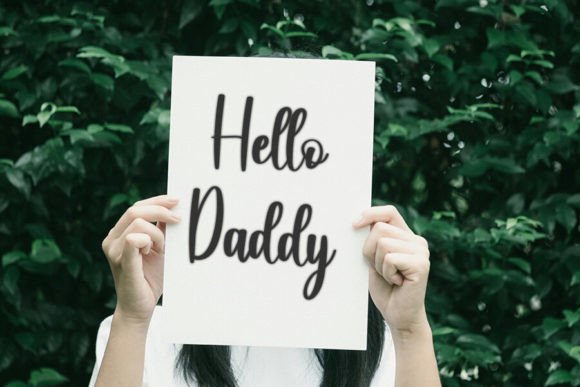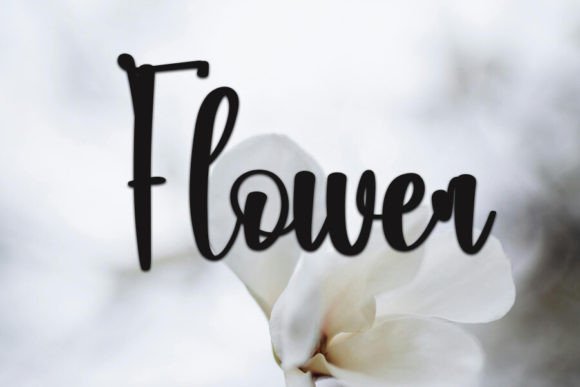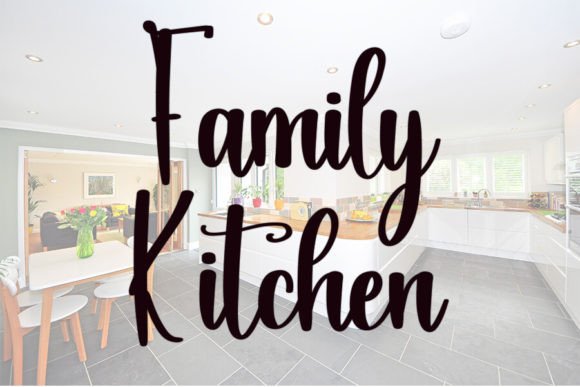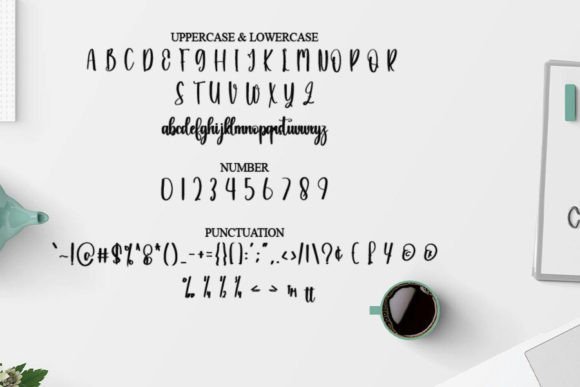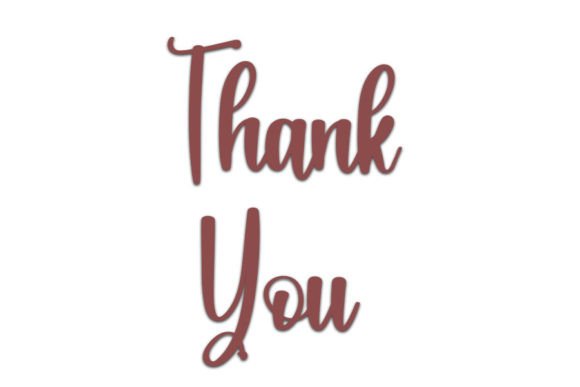
Introduction to Raindrop Font
Do you ever find yourself stuck in a creative rut, browsing through design resources for the perfect font to bring your vision to life? For many of us, this moment of inspiration is what sparks our creativity and drives us to create something truly special. I recall a recent project where I stumbled upon the perfect font – the Raindrop Font – and instantly knew it would elevate my design to the next level.
With its elegant and playful touch, the Raindrop Font is a versatile design resource that can add a personal touch to any creative project. Whether you’re working on a DIY project, creating social media graphics, or crafting calligraphy scripts, this font is sure to make your work stand out. And the best part? The Raindrop Font can be easily downloaded and used with a transparent background, making it perfect for high-quality designs.
For designers, the Raindrop Font is a valuable addition to any design library, offering a unique and stylish way to express your creativity. In this article, we’ll dive deeper into the world of the Raindrop Font and explore its many uses and benefits.
Key Features of Raindrop Font
- High-quality, vector-based design suitable for various creative projects.
- Includes multiple font styles and weights for versatility in design projects.
Honest Review: Raindrop Font
As a designer, I’m always on the lookout for high-quality design resources to elevate my creative projects. Recently, I came across the Raindrop Font, and I’m excited to share my honest review with you.
What works well: ✨ The Raindrop Font is a beautiful, elegant script font that’s perfect for adding a touch of sophistication to any design. Its transparent background makes it easy to work with, and the free download option is a huge plus. The font is also highly customizable, allowing you to adjust the size, color, and spacing to suit your needs.
- ✨ Beautiful, elegant script font
Limitations: ⚠️ While the Raindrop Font is a great addition to any design resource collection, it’s not without its limitations. The font may not be suitable for all types of projects, and its complexity may make it difficult to use for beginners.
Overall impression: I’m really impressed with the Raindrop Font, and I think it’s a great choice for any designer looking to add a touch of elegance to their creative project. With its high quality, transparent background, and free download option, it’s a must-have in any design resource collection.
Raindrop Font
The Raindrop Font is a high-quality design resource ideal for creative projects. Its transparent background makes it versatile and easy to use in various design applications.
Tips for Getting the Most Out of Raindrop Font
To get the most out of the Raindrop Font, use it in conjunction with other design elements, such as images and graphics, to create visually appealing designs. Experiment with different font sizes and styles to add depth and interest to your projects.
The Raindrop Font is suitable for a wide range of creative projects, including graphic design, digital art, and even print materials. Its transparent background makes it easy to use in various design applications, making it a valuable resource for designers and artists.